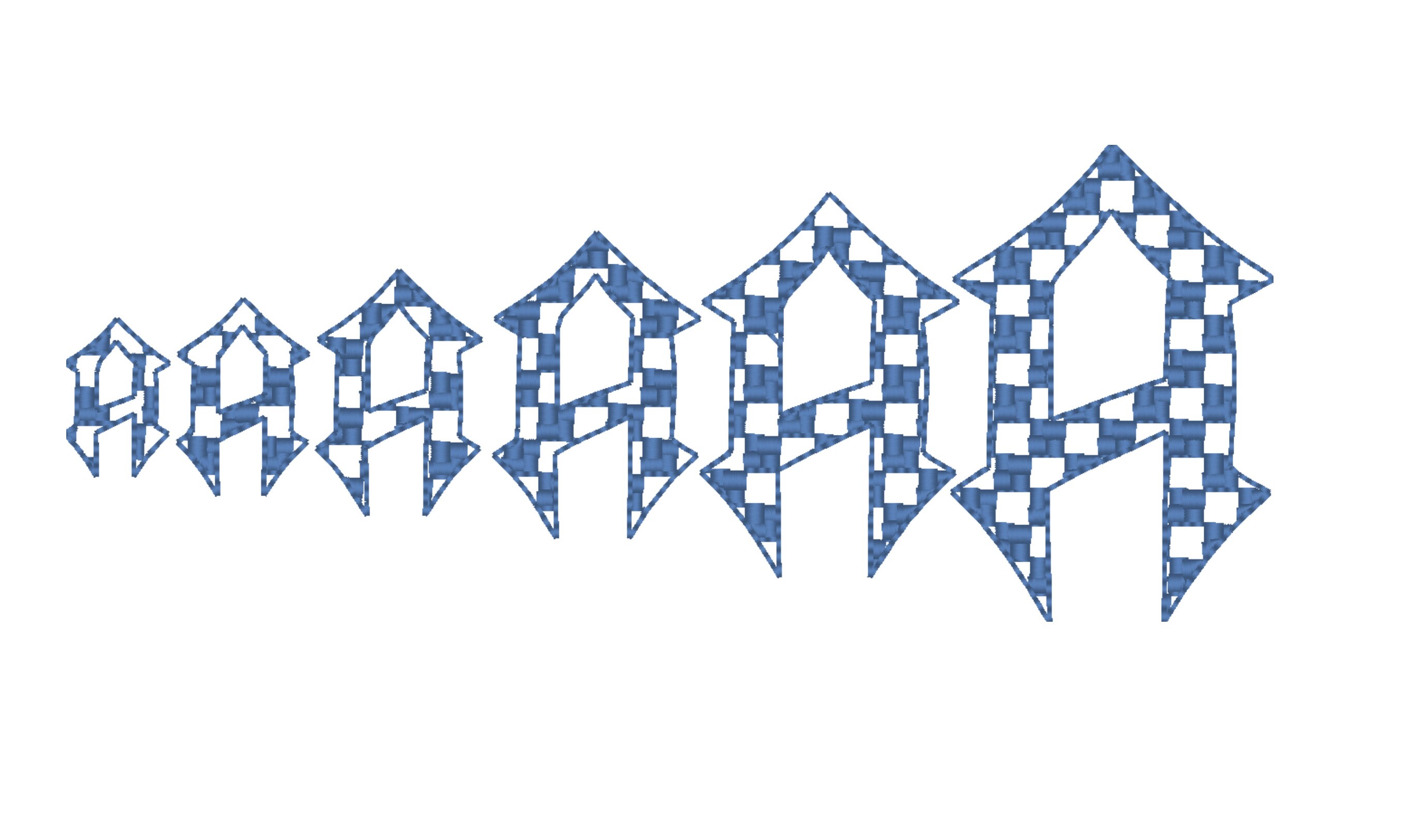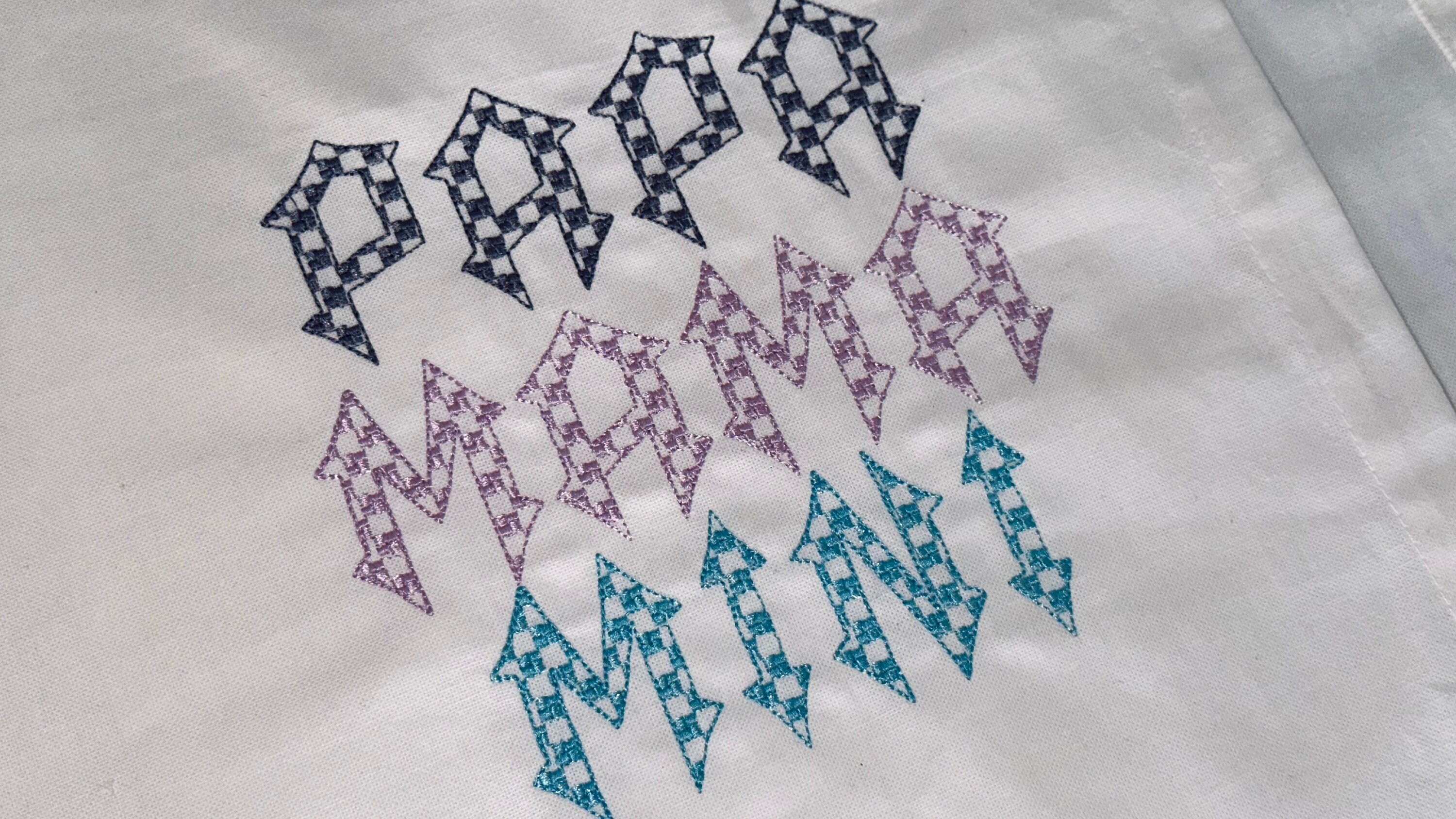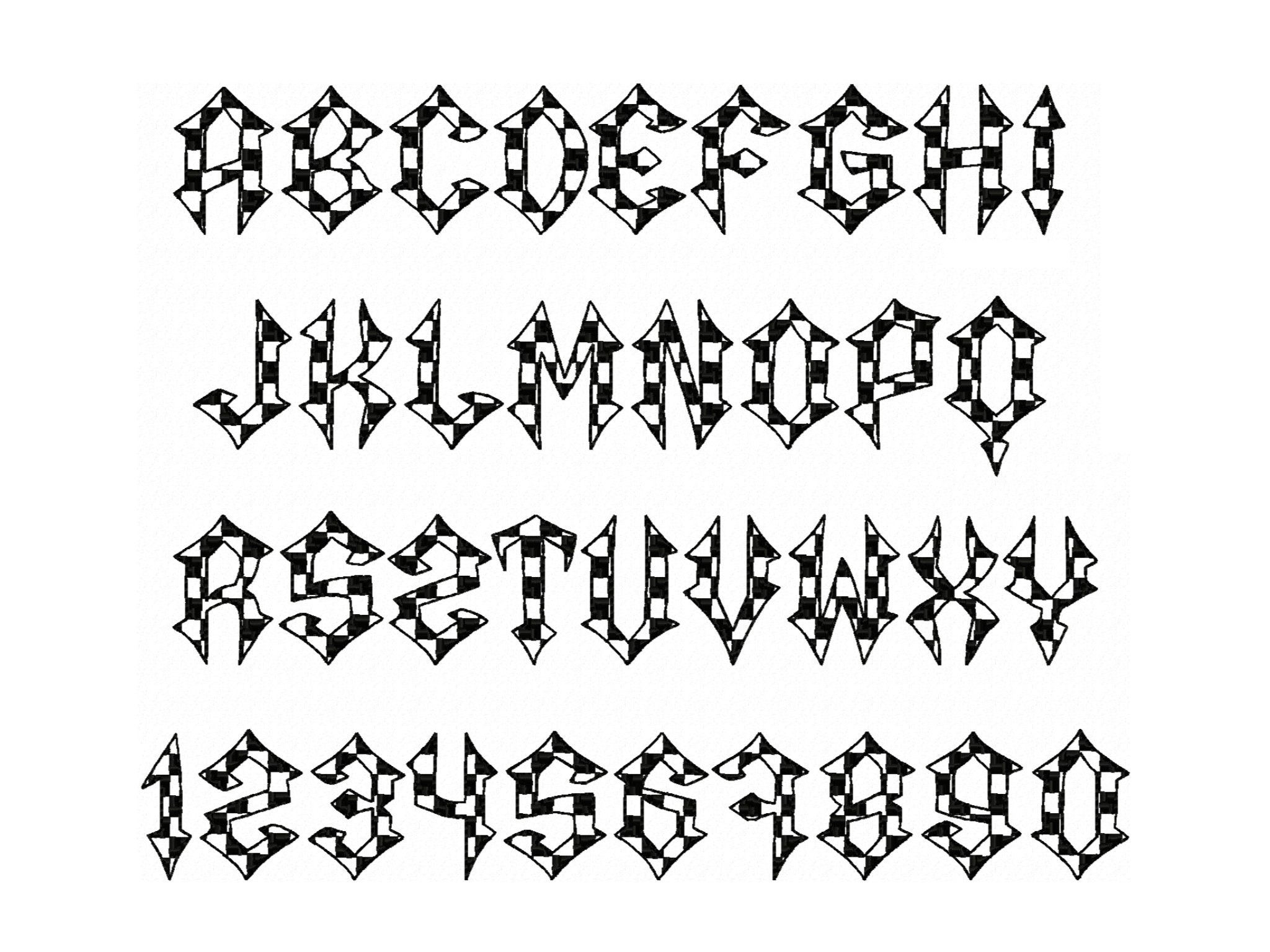
Old fashioned Happy checkered font Mama rocks Papa rocks MINI Font alphabet machine embroidery designs sizes from 1 up to 2.5 inches
Uppercase letters and numbers.